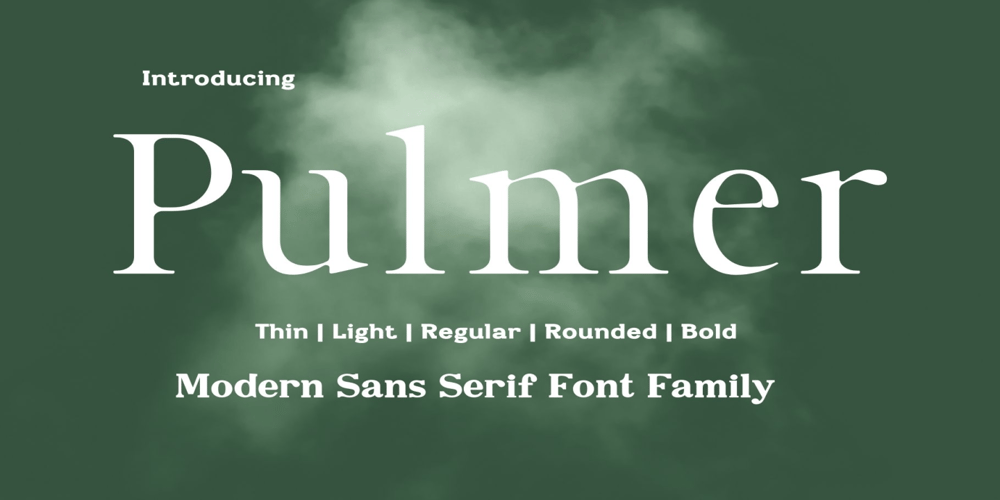
Pulmer Font Family was designed by Petr van Blokland and published by Adita Fonts. Pulmer contains 4 styles and family package options. Pulmer is a modern, minimalist font family with a wide choice of weights. Pulmer can be used for headlines, posters, branding, packaging, presentations, and nearly any other creative design.|| Included Features: ||– Font Weight: Regular, Light, Thin, Round and Bold